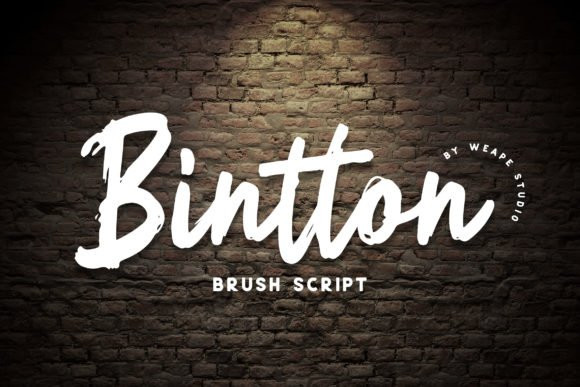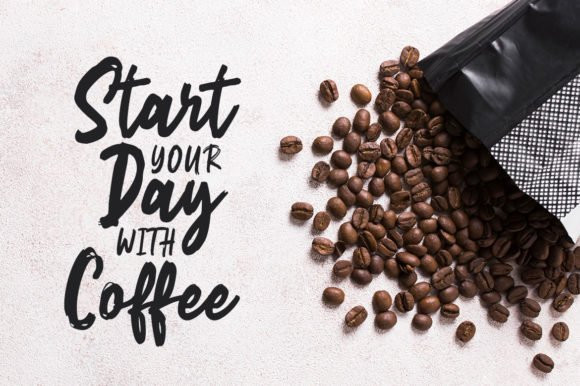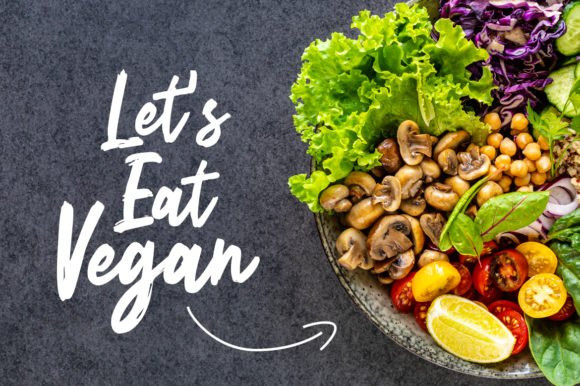
Bintton Font
BIntton is a bold and thick lettered display font. It is the best choice for creating eye catching logos, branding and quotes. Add this font to your creative ideas and notice how it will make them stand out!